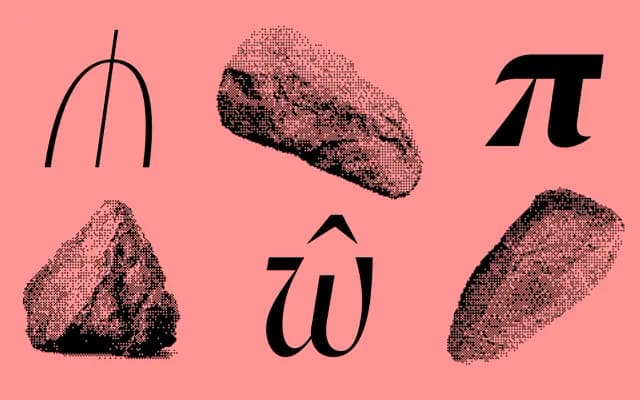
F37 Lothian
A high-contrast Scotch-style display serif tied to Edinburgh and the Lothians, twelve styles from Hairline to ExtraBold with italics.
F37 Lothian is a high-contrast display serif rooted in the Scotch Roman tradition, with F37 framing the family around the Scottish Lothians and Edinburgh references including Holyrood Palace, the Royal Mile and Robert Burns. Twelve styles run across Hairline, Thin, Light, Regular, Bold and ExtraBold with matching italics, so it flexes from delicate magazine headlines to confident luxury logotypes. Reach for it on editorial, fashion, hospitality and any heritage-leaning identity that wants a Scotch voice with modern proportions.
F37 frame Lothian around the Scottish Lothians and Edinburgh references such as Holyrood Palace, the Royal Mile and Robert Burns. A twelve-style high-contrast display serif with six weights from Hairline to ExtraBold and matching italics, sitting in the Scotch Roman tradition.